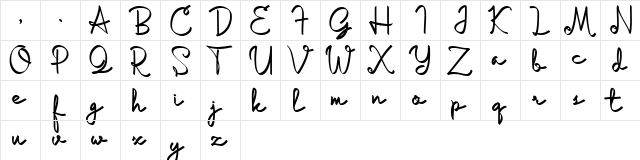
Localova Script - Demo Regular
Design Context for Localova Script - Demo Typeface
Localova Script - Demo flows with the natural rhythm of handwritten lettering, making it ideal for designs that call for warmth and personal expression.
Font Pairing: Combine Localova Script - Demo with a simple geometric sans for maximum contrast — the tension between flowing curves and clean structure is a classic typographic pairing.
Pro Tip: Use Localova Script - Demo for short runs of text — names, titles, or taglines. Extended body copy in script faces tires the eye quickly.